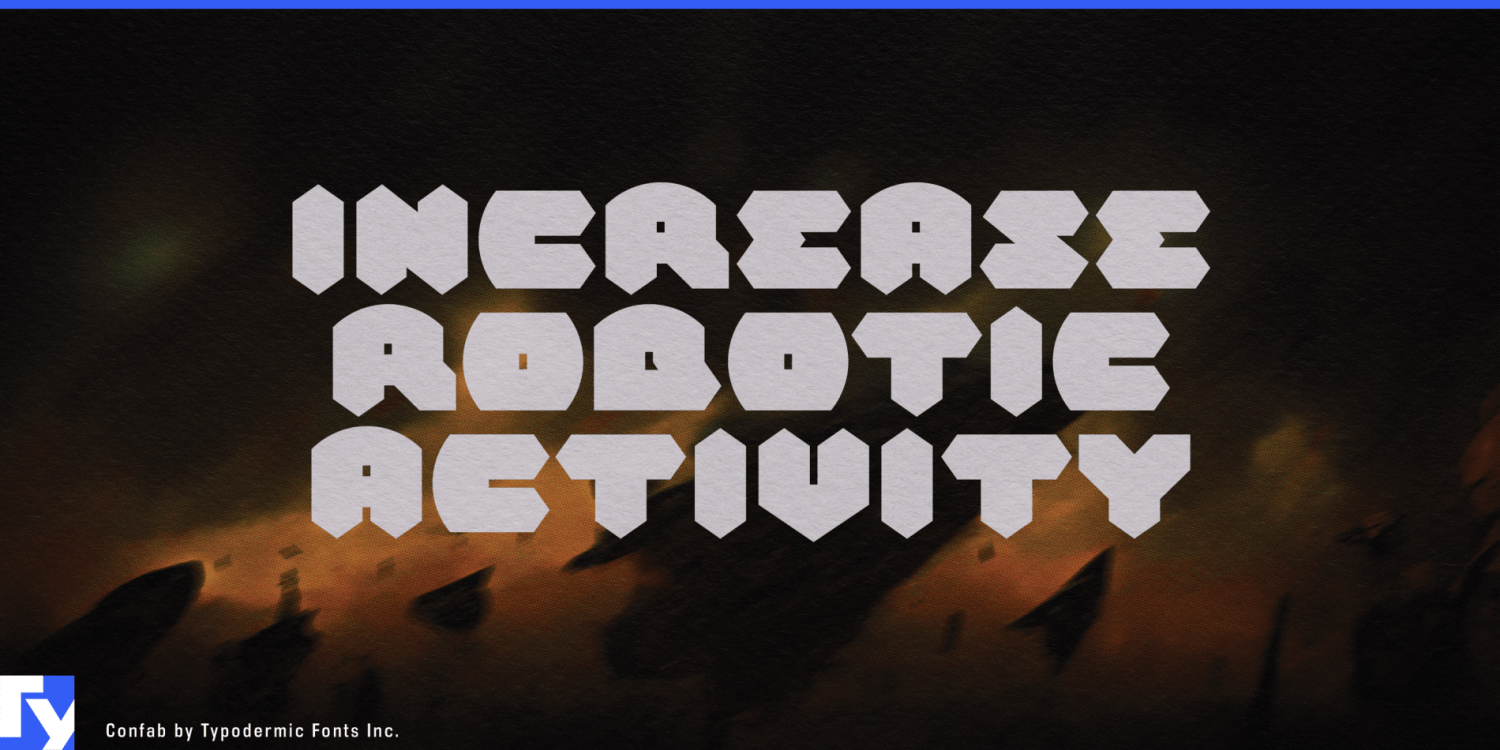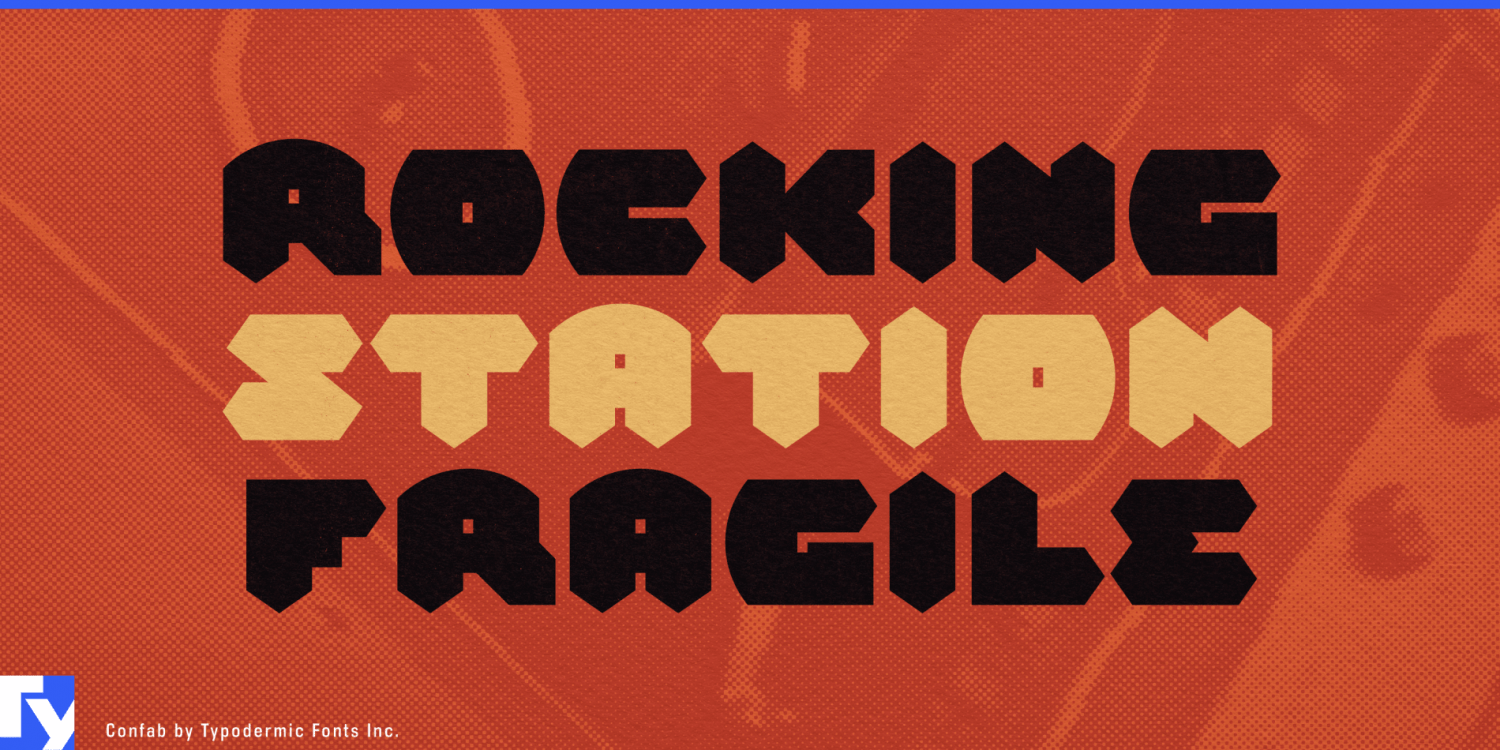
About Confab
Step into the future of communication with Confab, a typeface that seamlessly blends pure geometric forms with cutting-edge design. This visionary font family doesn’t just occupy space—it commands attention, transforming ordinary text into…